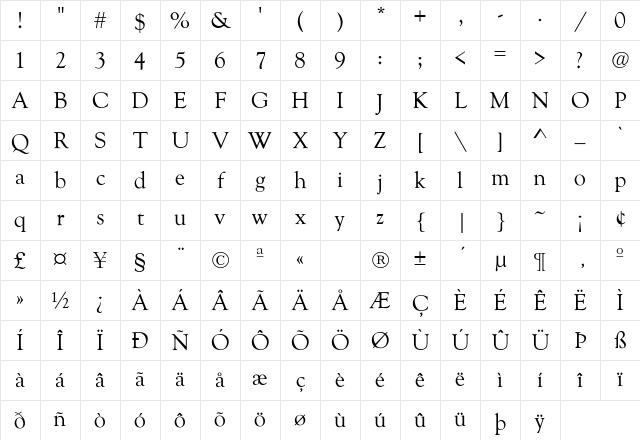
Goudy-Old-Style-Normal Regular
Design Context for Goudy-Old-Style-Normal
Goudy-Old-Style-Normal is a composed and adaptable typeface that performs quietly and consistently across a wide range of design contexts.
Pro Tip: Use Goudy-Old-Style-Normal in both headline and body roles to test its range before committing to a single application.